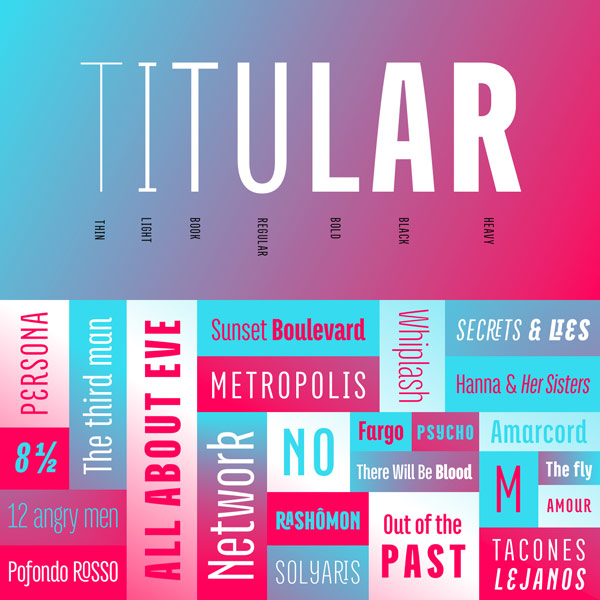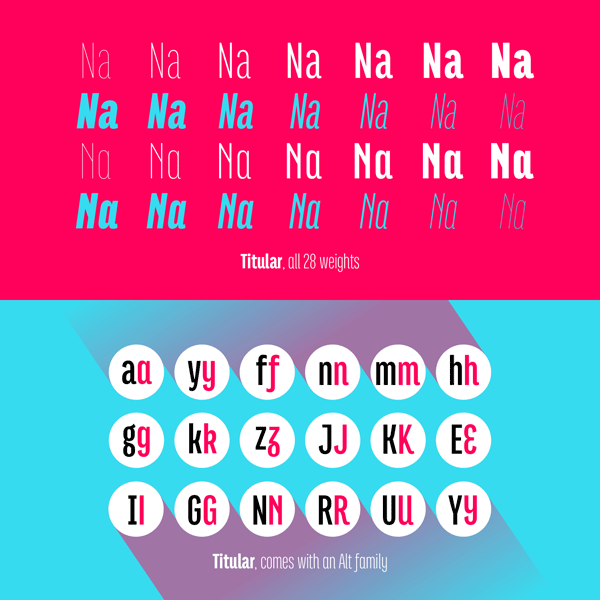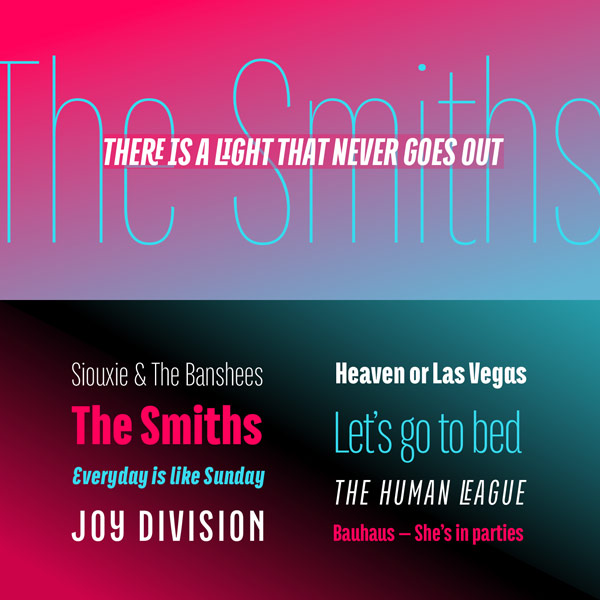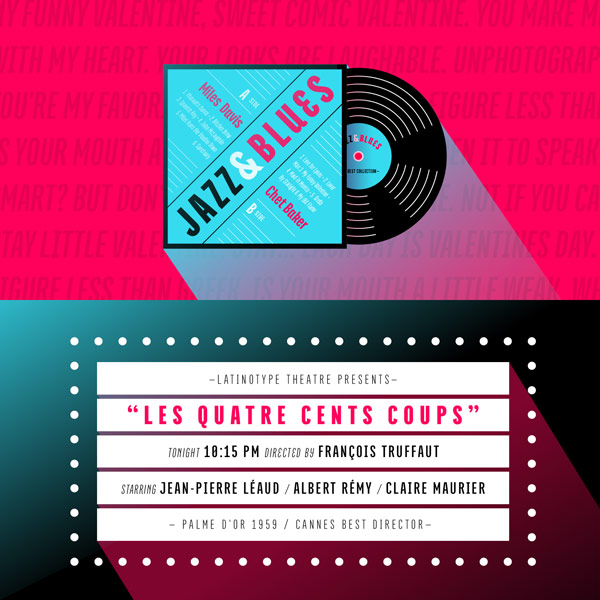
Titular font family, a condensed Sans Serif typeface for headings and subheadings in newspapers, magazines, and posters.
The Titular font family is a new typeface release from the Latinotype Team. It has been published in 2015. Titular is intended for the use as display font. It works great in diverse headlines and subheadings for newspapers, magazines, and posters. In addition, it’s a great choice for logotypes and a variety of branding projects.
Titular combines the spirit of old Woodtypes with the addition of a strong contemporary touch. The entire Titular font family consists of two subfamilies: a regular version and an alternative subfamily. Both regular and alternative version consist of 7 weights plus matching italics for each weight. The entire family is available as webfont and desktop font.
Bruno Jara has designed this typeface with the help of the Latinotype Team (consisting of Luciano Vergara, Daniel Hernández, Bruno Jara, César Araya, and Rodrigo Fuenzalida). For additional information on this new sans serif display font family, just follow the link below.